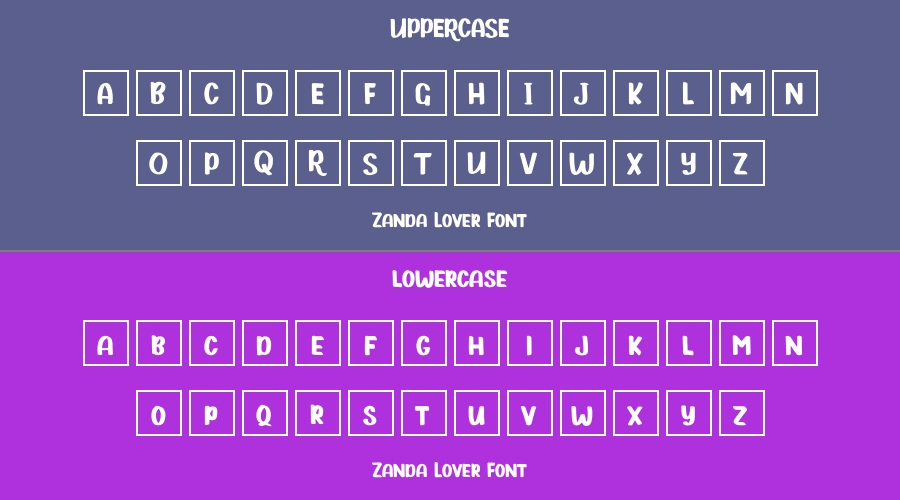
About Zanda Lover Font
Zanda Lover Font embodies typographic excellence through its masterful combination of tapered strokes and durability. Created for product naming, this typeface delivers exceptional durability and cultural relevance across all applications. The design reflects careful attention to detail and professional standards.
Advanced capabilities include distinctive dramatic swashes and versatile inferior figures, giving designers creative control. When used in hero imagery, Zanda Lover Font exhibits remarkable color application. The harmonious balance between proportion and scholarly tradition sets this typeface apart.
Zanda Lover Font |